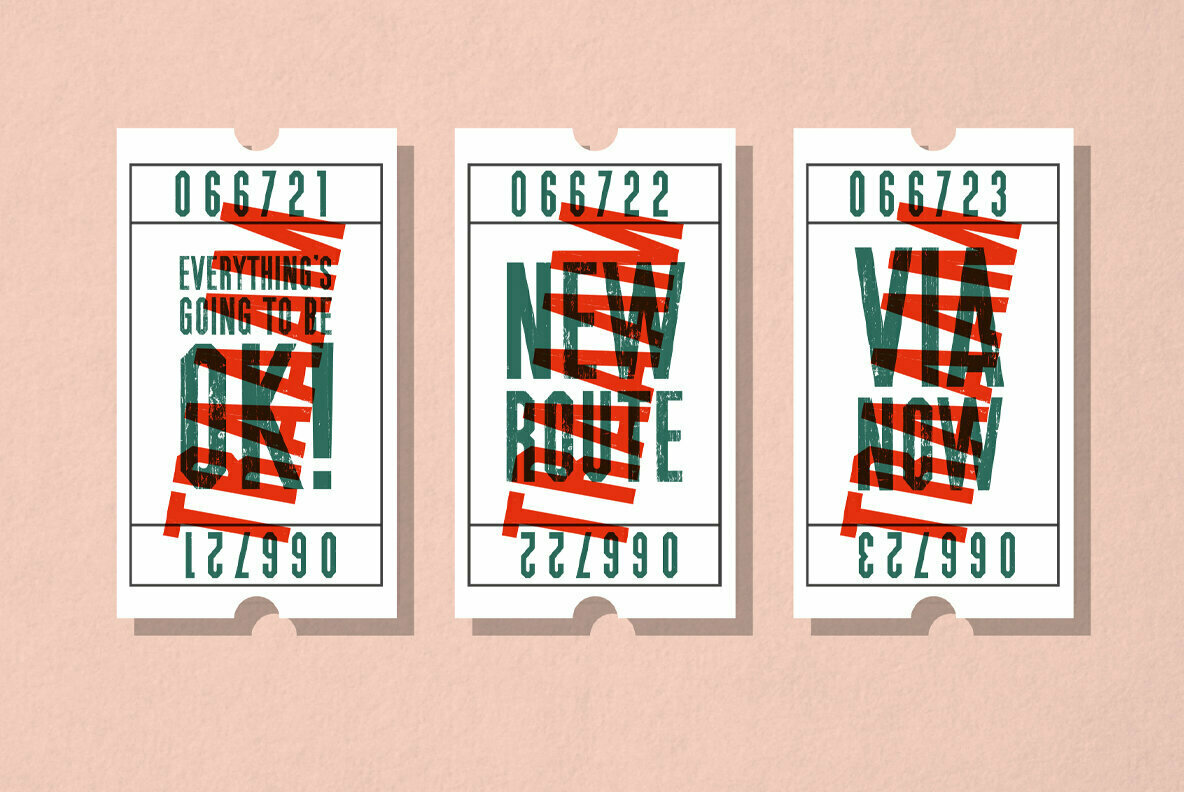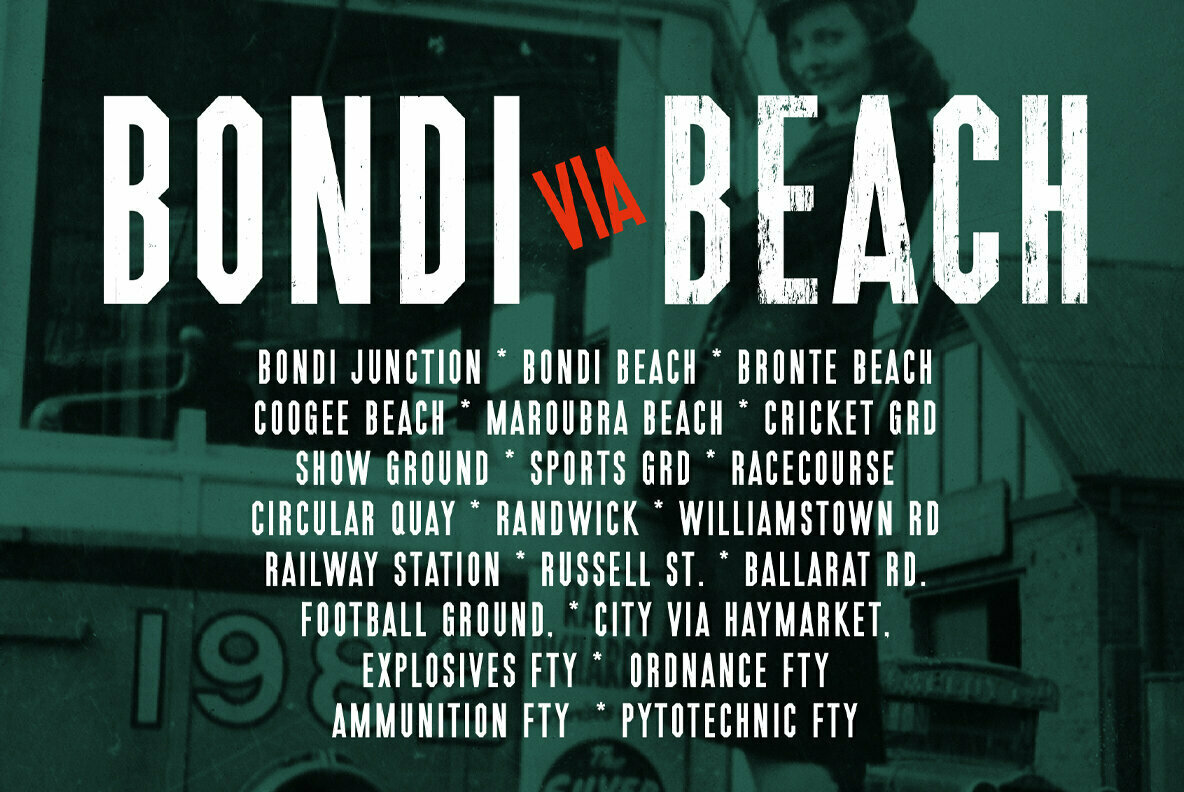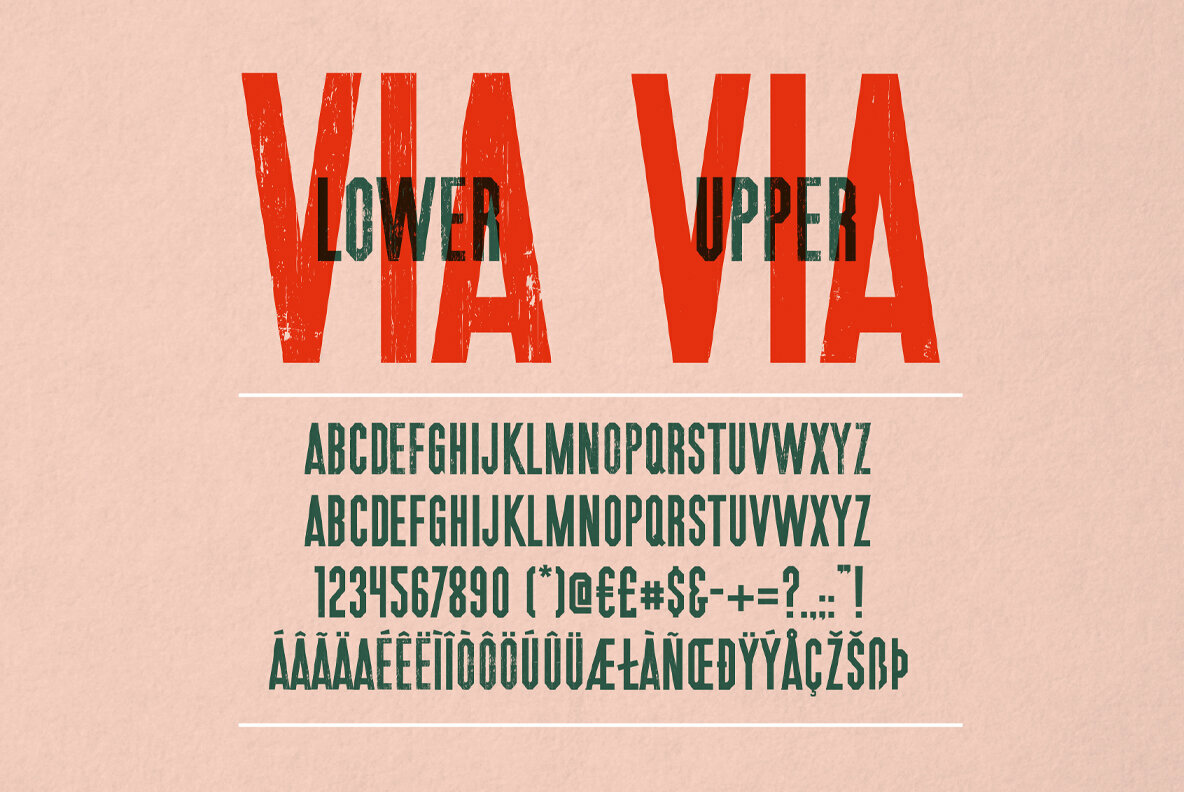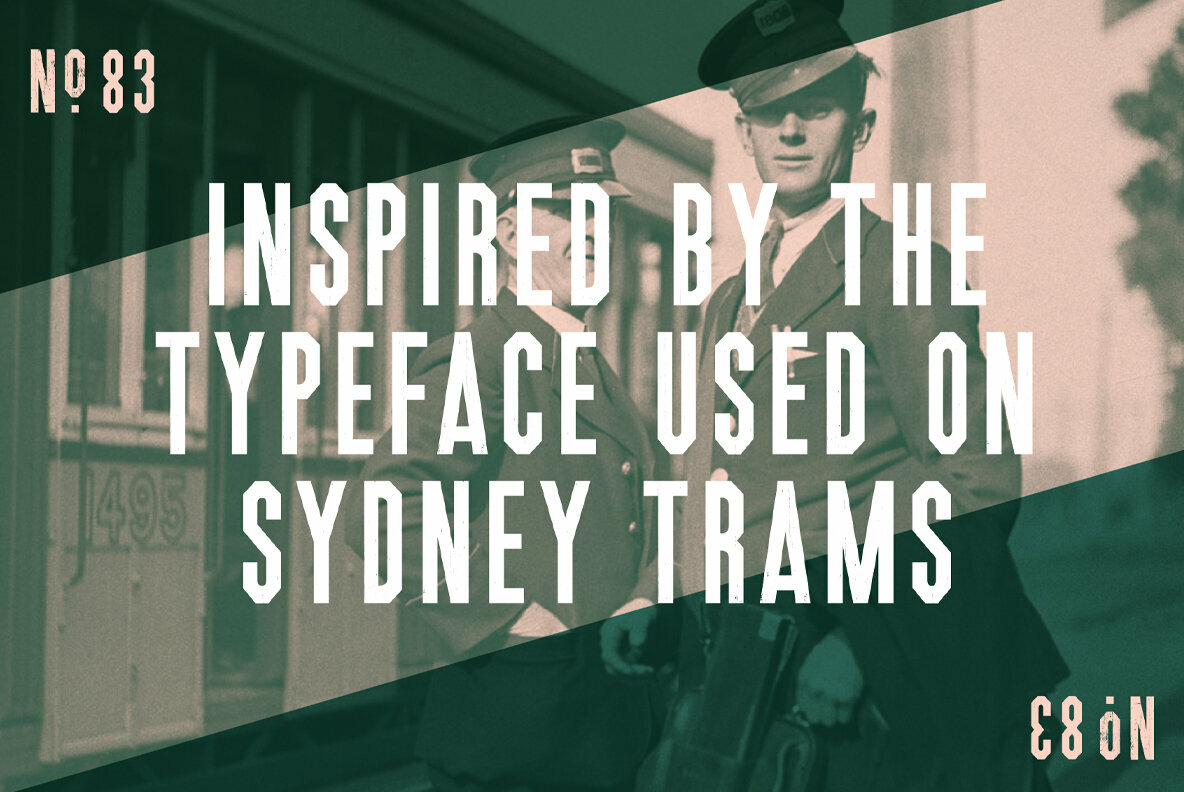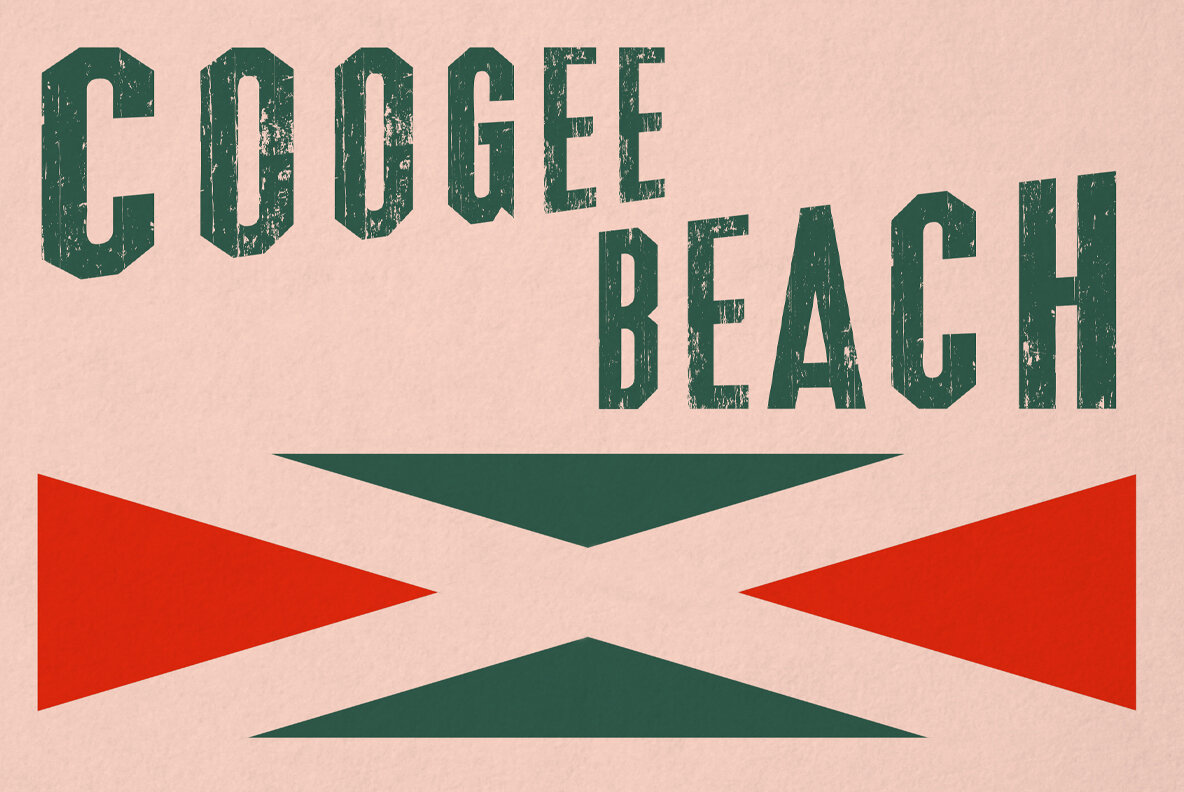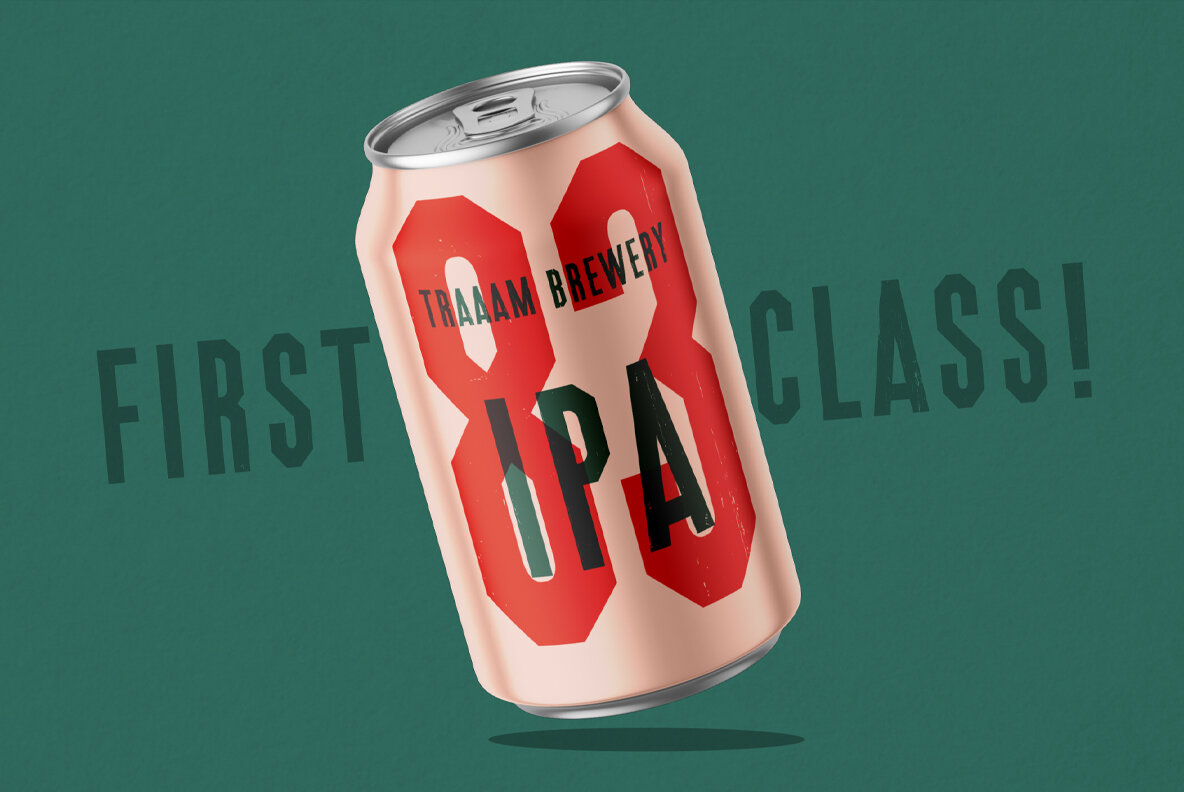
Traaam Font
Traaam's based on the old Sydney tram system signage. Traaam's got heavy lines and round interiors, it's condensed with distinctive squared off corners. The vintage type comes with the lowercase being more distressed than the upper (a kind of first and second class) so you can really mix things up. It's great for headlines, bold branding and strong signage. Get your surf board, because Bondi here we come!